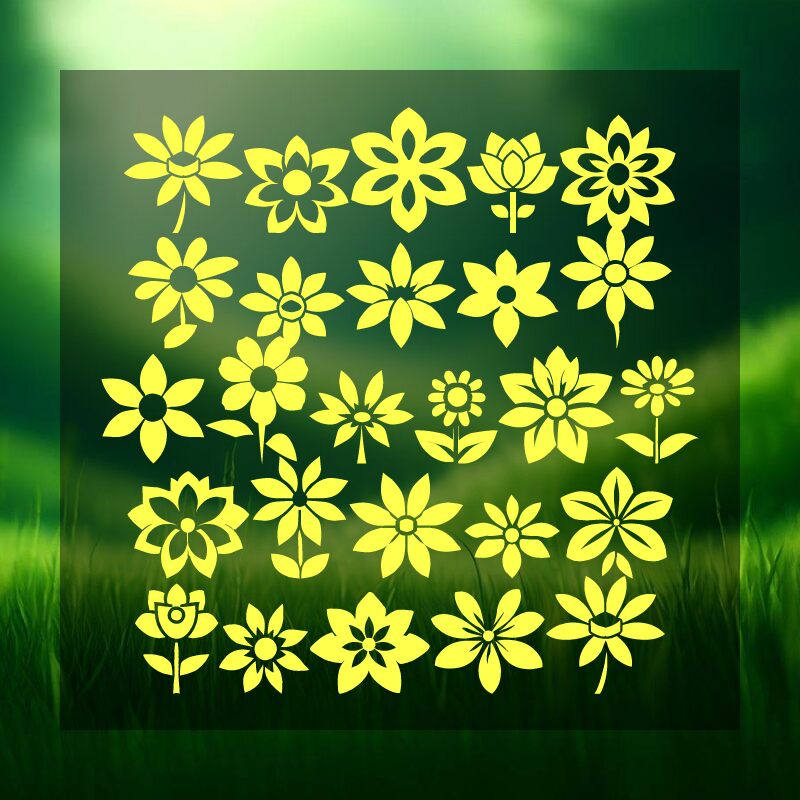
ReFlowers of South St
ReFlowers of South St font by Southype is a free nature dingbat typeface that turns simple keystrokes into crisp, inky flower bursts. Each mark feels like a bold, paper-cut blossom, repeating cleanly to form seamless borders, dividers, and frames without any fussy drawing. The consistent weight and tight, even rhythm make it easy to build patterns that feel handmade yet polished.
Using ReFlowers of South St, you can dress up wedding invitations, spring event flyers, scrapbooking pages, product packaging, social posts, or thank-you cards in seconds. This free font shines when used as a top or bottom border, or as a strip between text sections. Pair these floral icons with a light, neutral sans serif and keep the main text smaller so the dark petals stay the visual anchor.